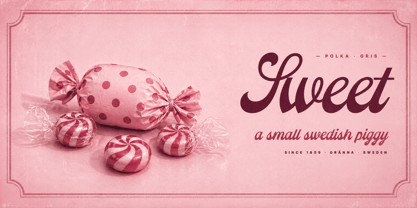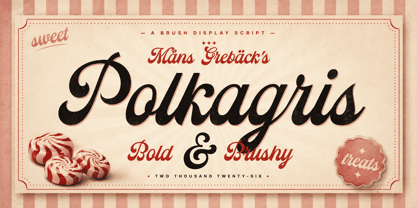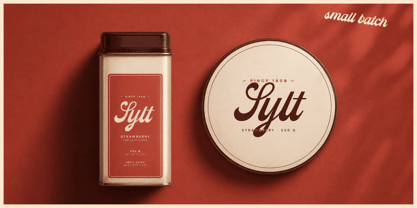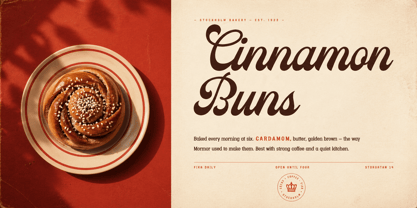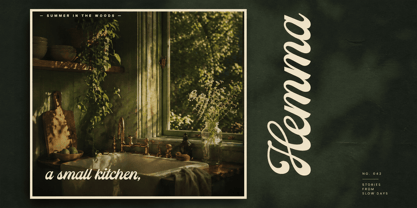
Polkagris
A família de fontes Polkagris foi desenhada por Måns Grebäck e publicada pela Mans Greback. Polkagris contém 4 estilos e opções de pacote familiar. Saiba mais sobre esta família
Polkagris is a thick brush display with a generous bounce and a sweet tooth.
The strokes carry weight from start to finish, drawn with the kind of round-ended brush that flares slightly into the paper. Letters tilt and shift in height across a word, so a line never quite sits straight — closer to handwritten signage than to a typeset header. The terminals round off cleanly, the bowls are full and unhurried, and even the punctuation reads as deliberate.
You can picture it on a candy-shop awning in late autumn, or pressed into a paper bag of striped peppermint sticks tied off with twine.
The font is built with advanced functionality and guaranteed top-notch quality, containing stylistic and contextual alternates, ligatures and more automatic and manual features; all to give you full control and customizability.
It has extensive lingual support, covering all Latin-based languages, from North Europa to South Africa, from America to South-East Asia. It contains all characters and symbols you'll ever need, including all punctuation and numbers.
Designed and created by Mans Greback. The name is the Swedish word for the red-and-white peppermint candy stick made in Gränna since 1859.